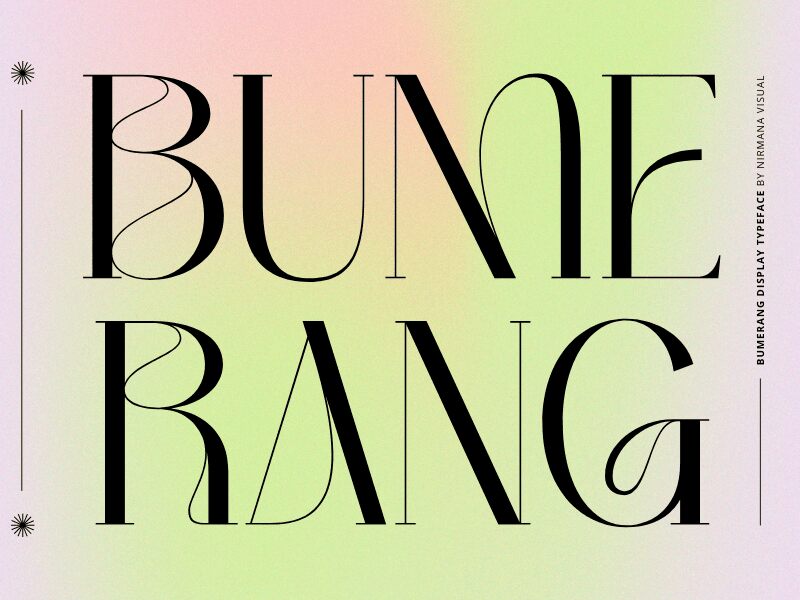
Bumerang, a captivating display font by Nirmana Visual, takes you on a nostalgic journey with its retro style. Its semi-light weight adds an airy and playful touch to your designs.
Perfect for vintage-inspired projects, Bumerang lends itself effortlessly to logos, posters, and packaging designs. With its distinct charm and unique personality, this font breathes life into any project seeking a touch of retro allure.
Let Bumerang transport your audience back in time as you evoke the spirit of the past with this delightful typeface.